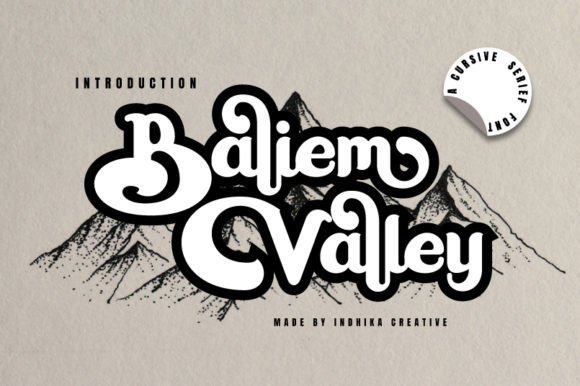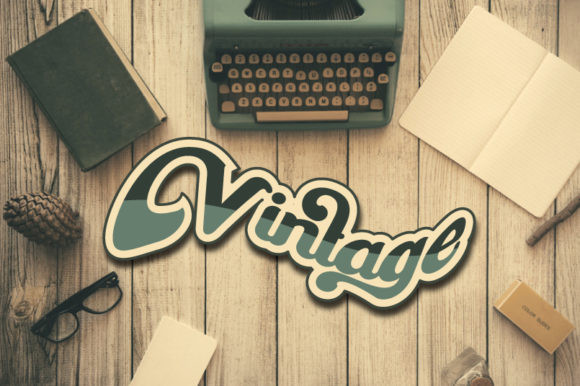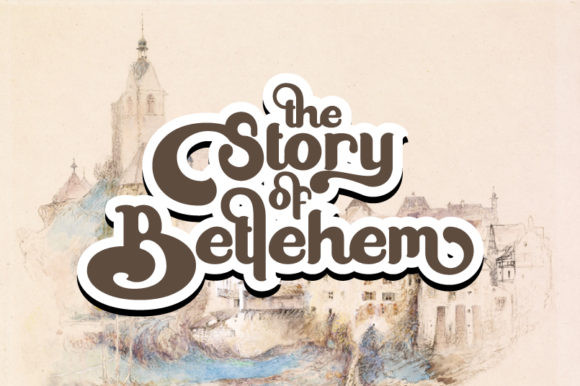
Baliem Valley Font
Baliem Valley is a cool, retro styled display font. This original look will appeal to a wide range of crafty ideas, from letterheads and titles, to stationery.